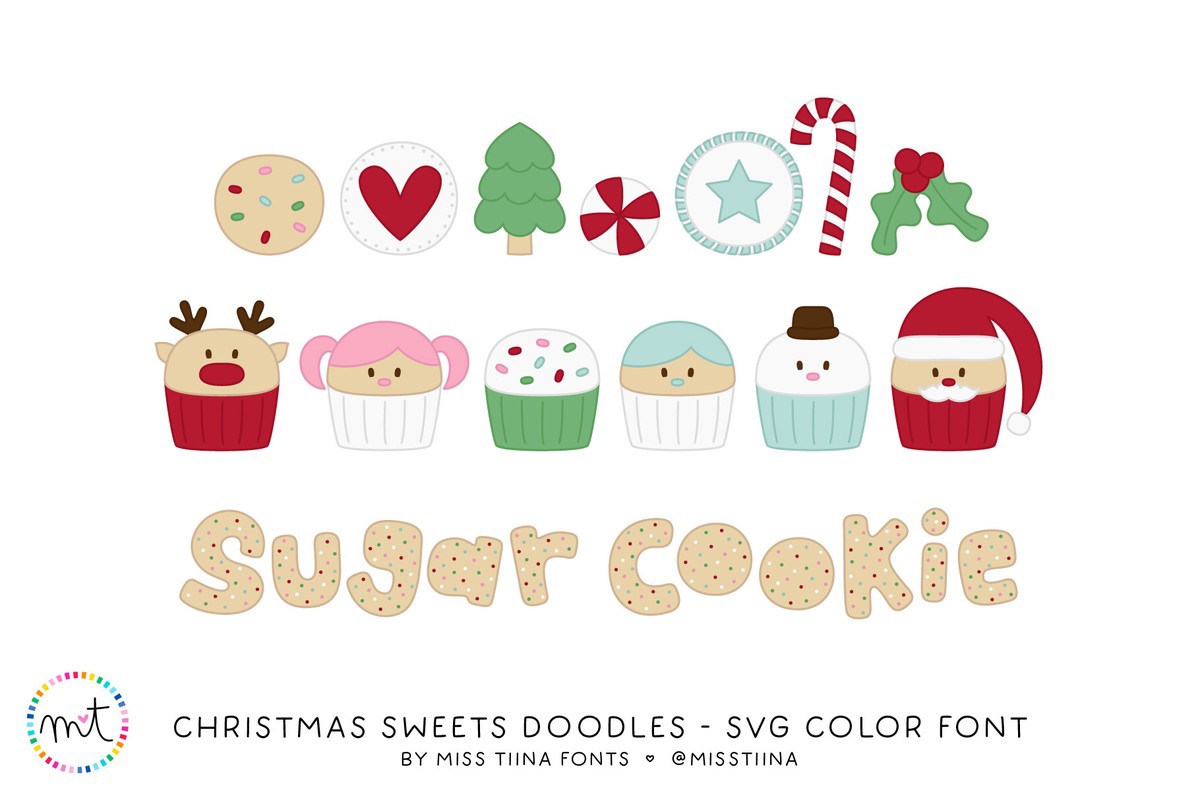
MTF Christmas Sweets Doodles
This whimsical font is perfect for candy shop Christmas displays, sweet treat packaging, children's Christmas books, playful holiday crafts, dessert menu designs, candy-themed Christmas parties, sweet Christmas decorations, confectionery branding, fun holiday activities, and delightful doodle-style seasonal messaging.
MTF Christmas Sweets Doodles is exciting because it combines the irresistible charm of Christmas confections with the spontaneous creativity of hand-drawn doodles through its playfully sketched letterforms that capture the sweet joy and artistic whimsy of doodling candy canes, gumdrops, and chocolate treats during cozy Christmas afternoons. The font features organic, sketch-inspired characters with candy-themed accents and doodle variations that mirror the delightful imperfection of drawing favorite Christmas sweets in the margins of holiday cards or sketching while waiting for cookies to bake, incorporating sugary flourishes and confectionery elements that create typography as sweet and charming as a child's drawing of their Christmas wish list filled with candy dreams. Each letter showcases the innocent creativity and sweet imagination that makes both doodling and Christmas candy such sources of pure joy and artistic expression.
The MTF Christmas Sweets Doodles family includes confection-inspired variations: Regular, Bold, Light, Sketchy, and Sweet versions. The collection features special candy elements including lollipop accents, candy cane swirls, gumdrop details, and chocolate chip flourishes. Additional components include candy borders, sweet frames, doodle decorations, and confectionery ornamental designs that enhance the font's Christmas sweets doodles appeal and create cohesive sweet artistic holiday themes.
Confectioners and creative artists will find MTF Christmas Sweets Doodles Free Download to be a perfect tool for creating authentically sweet and artistic holiday communications that celebrate both the joy of Christmas candy and the creative freedom of doodle art. This charmingly crafted font transforms ordinary confectionery messaging into delightful artistic expressions that capture the innocent pleasure of both drawing and eating Christmas sweets.
The typeface includes comprehensive character support with doodle styling that maintains excellent readability while conveying the sweet creativity and playful artistry of candy-themed Christmas doodles. The font's whimsical design ensures delightful results across both commercial confectionery applications and personal artistic holiday projects.
Perfect for candy stores, children's brands, artistic Christmas projects, and sweet holiday celebrations, this font delivers charming visual impact that communicates creativity, sweetness, and the delightful combination of artistic expression and confectionery joy that makes Christmas sweets doodles such a treasured form of seasonal creative fun.